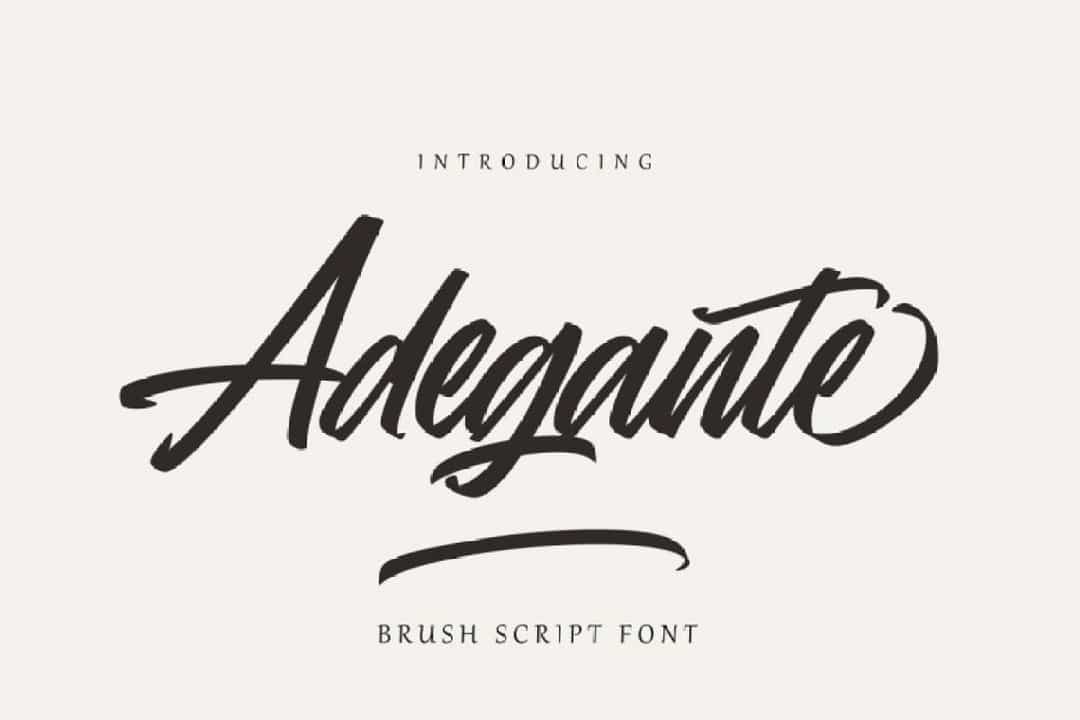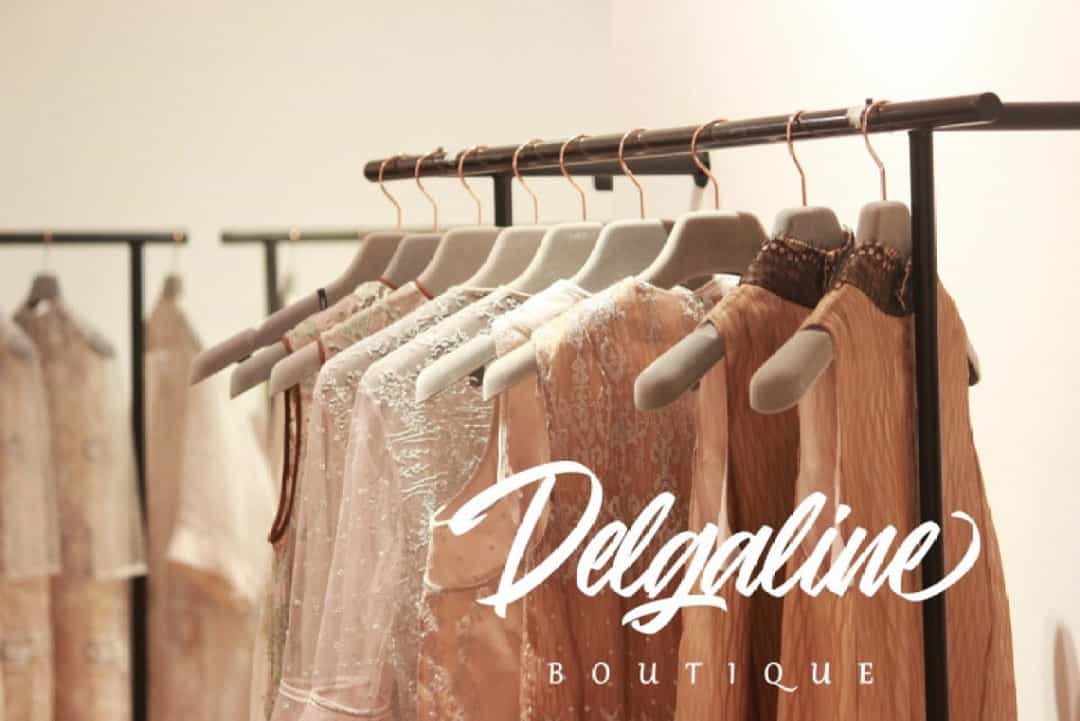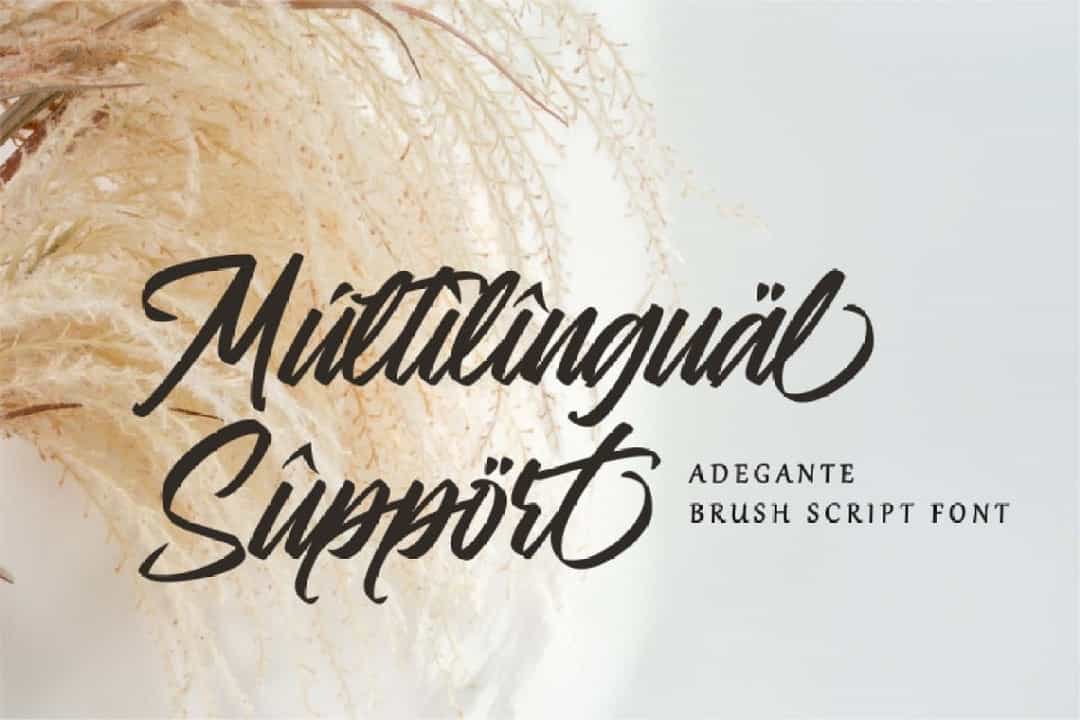
Adegante is an eye-catching brush script font with dry and rough strokes for an organic feel in design elements. Perfect for branding, signatures, wedding photographs, fashion posters titles and social media. Also ideal for use as banner ads as well as packaging book covers cards greeting cards as well as advertising.